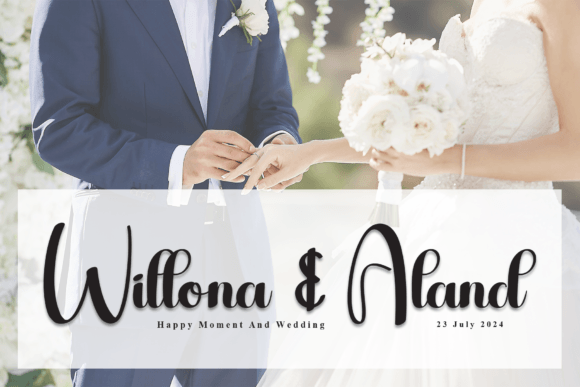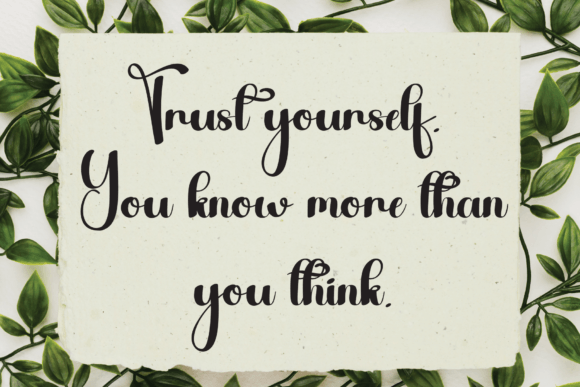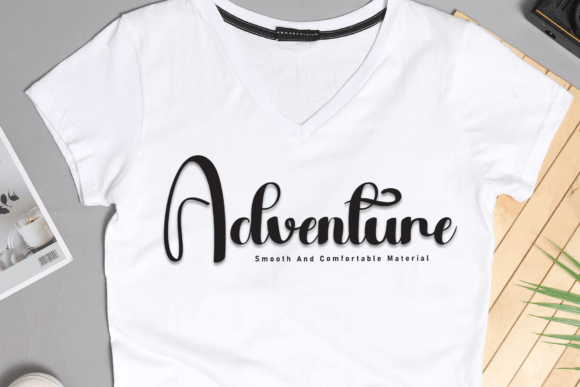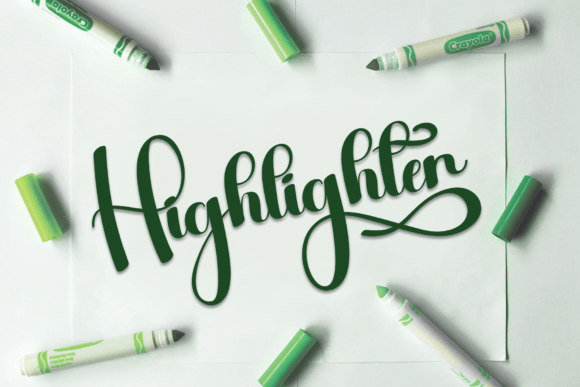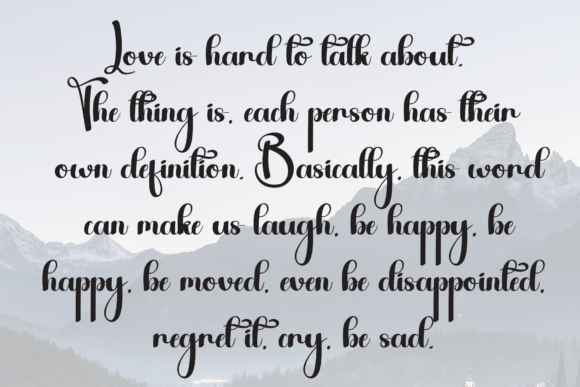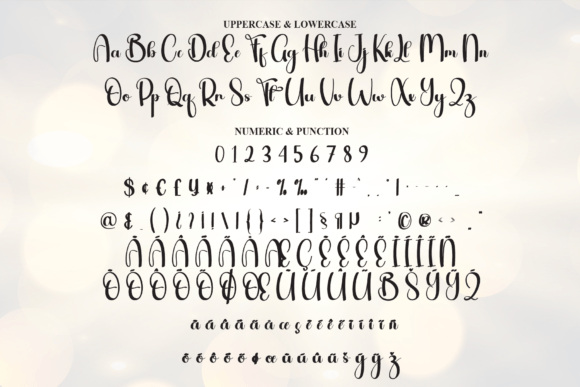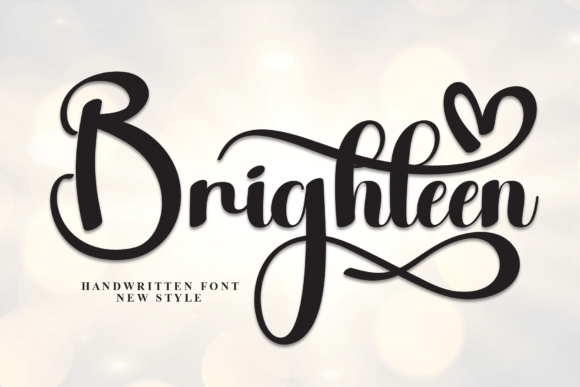
Introducing Brighteen Font: The Casual Handwritten Style for Relaxed and Friendly Designs
In the world of typography, fonts play a crucial role in setting the tone and personality of a design. For those looking to infuse their projects with a relaxed, friendly vibe, Brighteen Font is an excellent choice. This casual handwritten font is designed to capture the essence of natural, flowing strokes, making it perfect for personal projects, social media content, and invitations.
The Charm of Brighteen Font
Brighteen Font boasts an effortless, charming touch that can elevate any design. Its easygoing style adds warmth and authenticity, making it an ideal choice for designers and crafters who want to create a sense of connection with their audience. Whether you’re working on a personal project or a professional one, Brighteen Font can help you achieve a laid-back, yet stylish look.
Key Features of Brighteen Font
• Casual Handwritten Style: Brighteen Font features a natural, handwritten look that’s perfect for creating a relaxed and friendly atmosphere.
• Flowing Strokes: The font’s flowing strokes give it a smooth, effortless feel that’s ideal for designs that require a personal touch.
• Versatility: Brighteen Font can be used for a wide range of projects, including personal designs, social media content, invitations, and more.
• Easy to Read: The font’s clear and legible design ensures that your message is conveyed effectively, making it perfect for body text and headings.
Use Cases for Brighteen Font
Brighteen Font is an excellent choice for various design projects, including:
• Personal Projects: Use Brighteen Font to add a personal touch to your journals, planners, and other creative projects.
• Social Media Content: Elevate your social media posts with Brighteen Font’s casual, friendly style.
• Invitations: Create beautiful, handmade-style invitations for special occasions like weddings, birthdays, and baby showers.
• Crafting and DIY Projects: Brighteen Font is perfect for crafting and DIY projects, such as making labels, signs, and other decorative items.
Brighteen Font is a versatile and charming casual handwritten font that’s perfect for designers and crafters looking to add a relaxed, friendly touch to their designs. With its natural, flowing strokes and easygoing style, Brighteen Font is ideal for personal projects, social media content, invitations, and more. By incorporating Brighteen Font into your design projects, you can create a sense of warmth and authenticity that resonates with your audience.